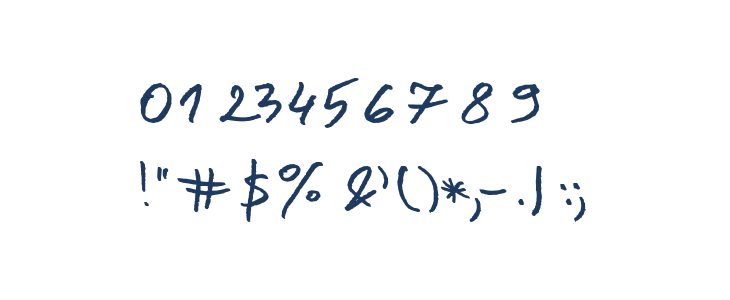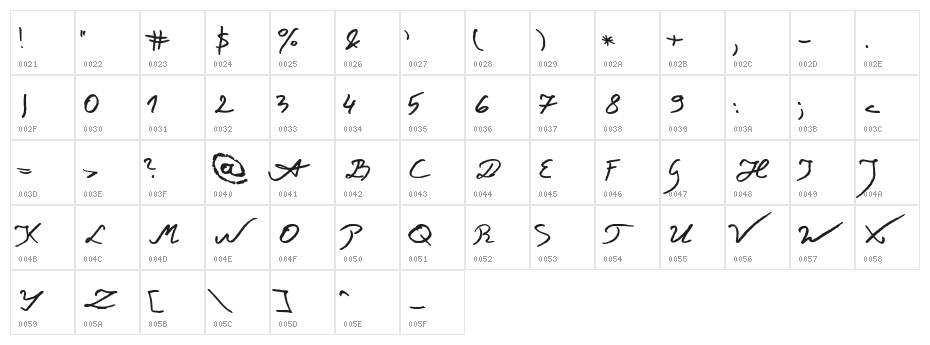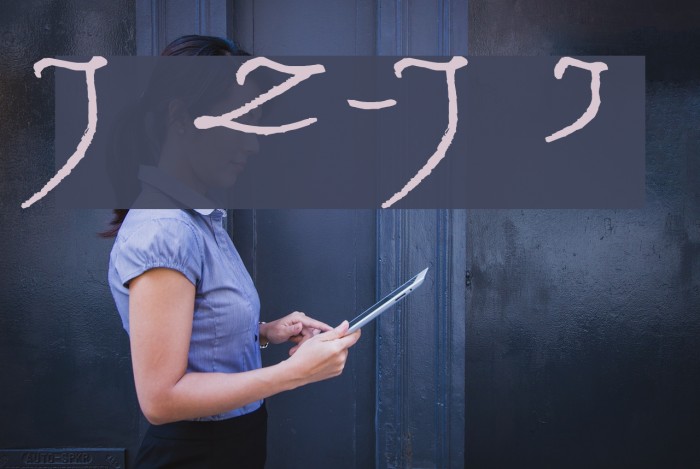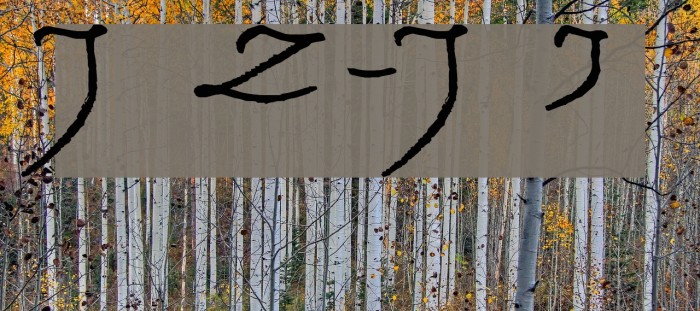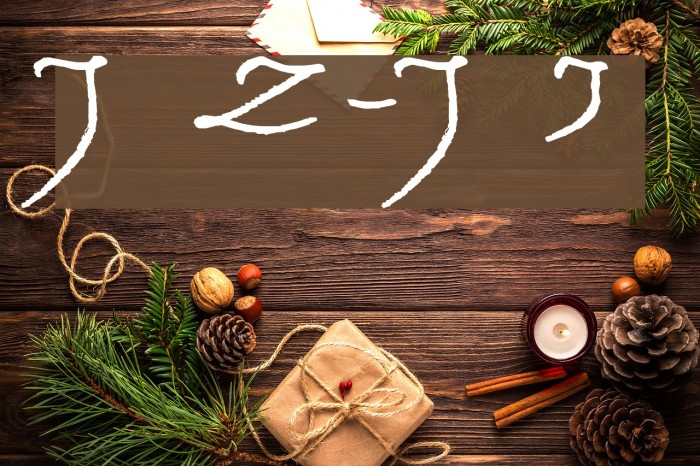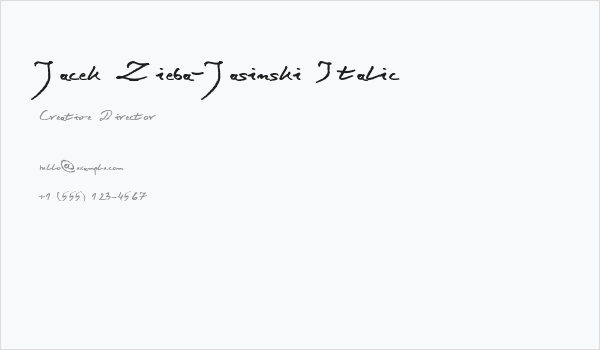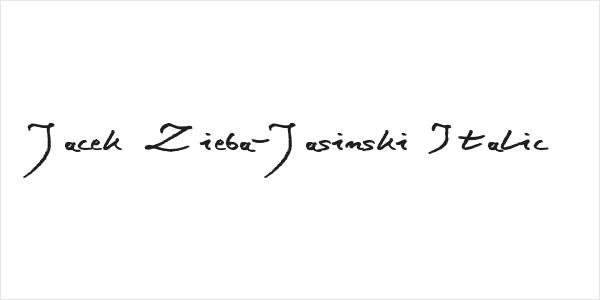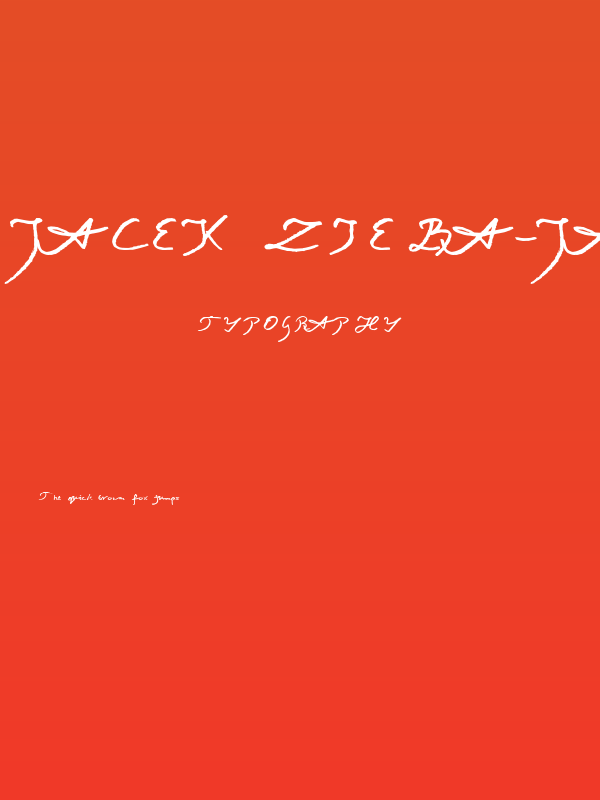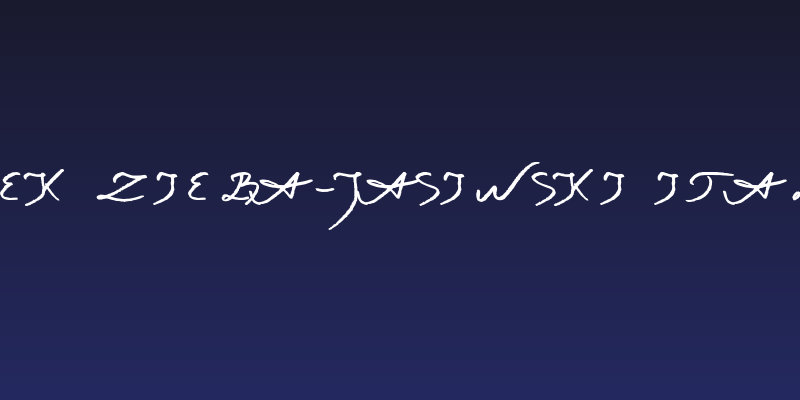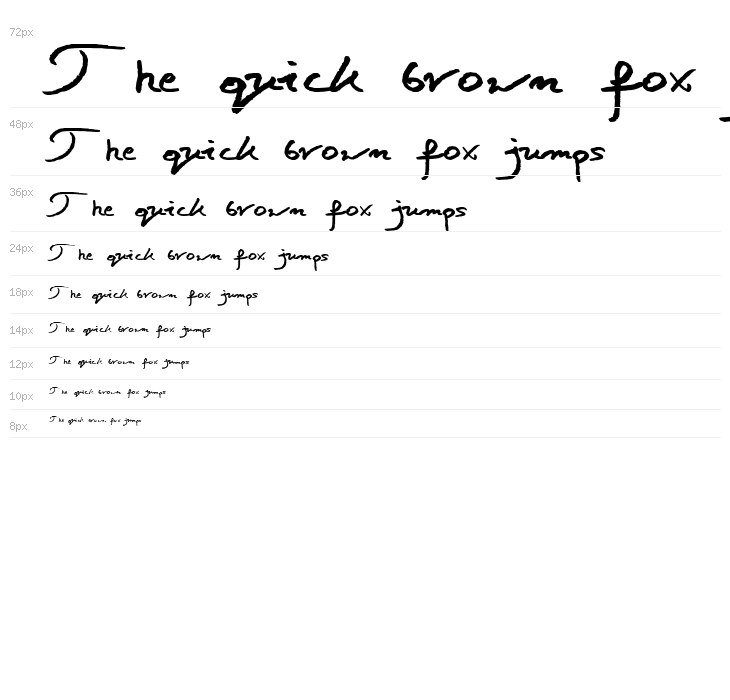
Jacek Zieba-Jasinski Italic Font
Jacek Zieba-Jasinski Italic Description
This font exhibits a fluid and dynamic handwritten style, characterized by its cursive and italicized form. The letters are connected, creating a seamless flow that mimics natural handwriting. The strokes vary in thickness, adding a personal touch and enhancing readability. The uppercase letters maintain a consistent height, while the lowercase letters feature elegant loops and curves. Numbers and special characters are crafted with the same attention to detail, ensuring uniformity across all elements. This font exudes a casual yet sophisticated vibe, making it suitable for projects that require a personal or artistic touch.
| Overall Style | Casual, Artistic |
| Use Case | Invitations, Artistic projects, Branding |
| Proposed Projects | Ideal for personal invitations, artistic projects, branding materials, and creative writing. |